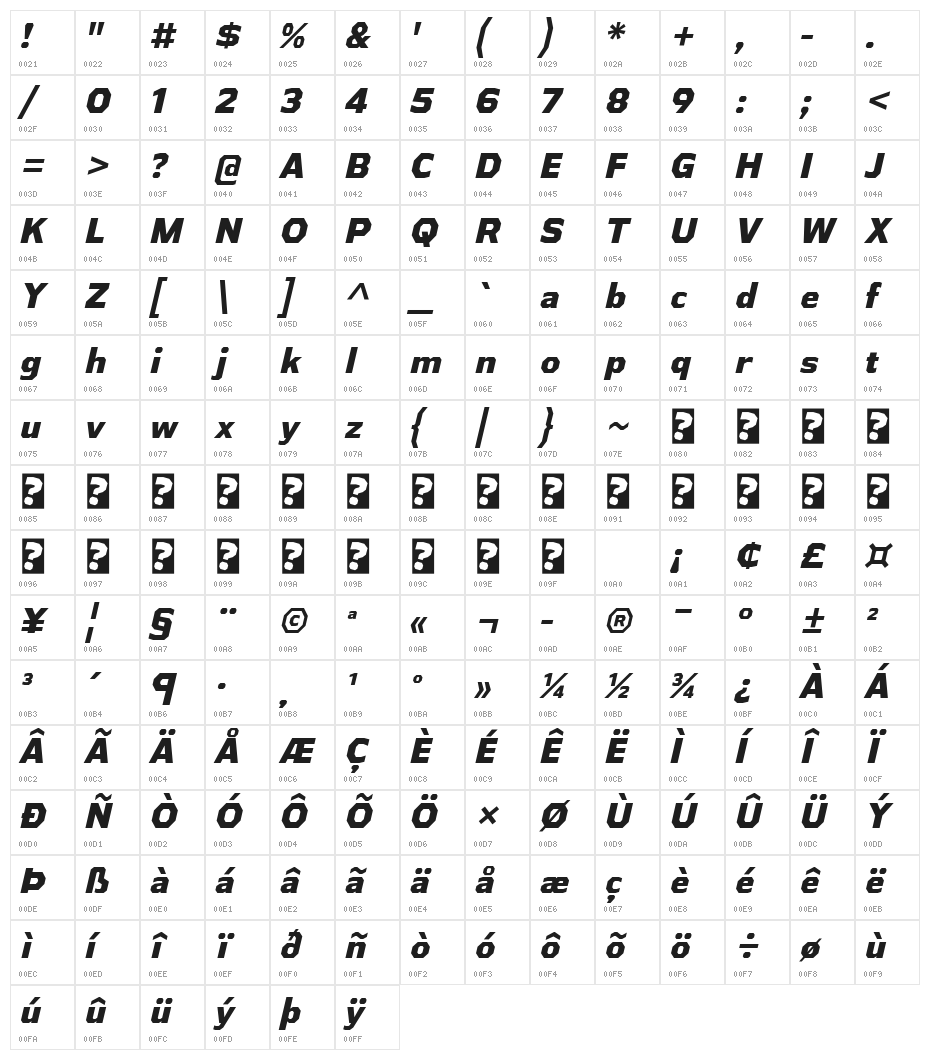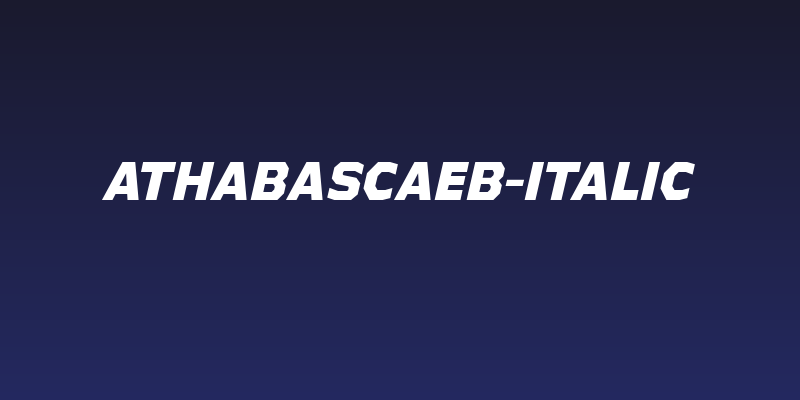
AthabascaEb-Italic Font
AthabascaEb-Italic Description
This font features a bold and dynamic style with a strong italic slant, giving it a sense of motion and urgency. The characters are robust and angular, with a geometric influence that adds a modern touch. The uppercase letters are particularly striking, with sharp edges and a commanding presence. The lowercase letters maintain the same boldness, ensuring consistency across the typeface. The numerals are equally bold, making them stand out prominently. Special characters are designed to match the overall aesthetic, ensuring a cohesive look. This font is ideal for projects that require a strong and impactful visual statement.
| Proposed Projects | Ideal for branding, advertising, sports team logos, and dynamic headlines. |